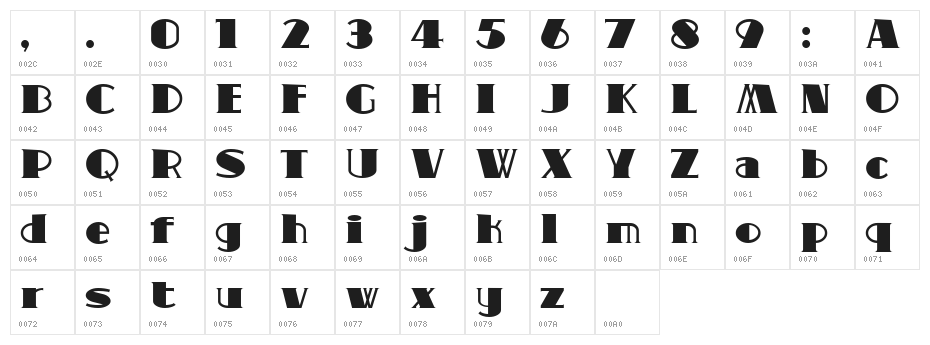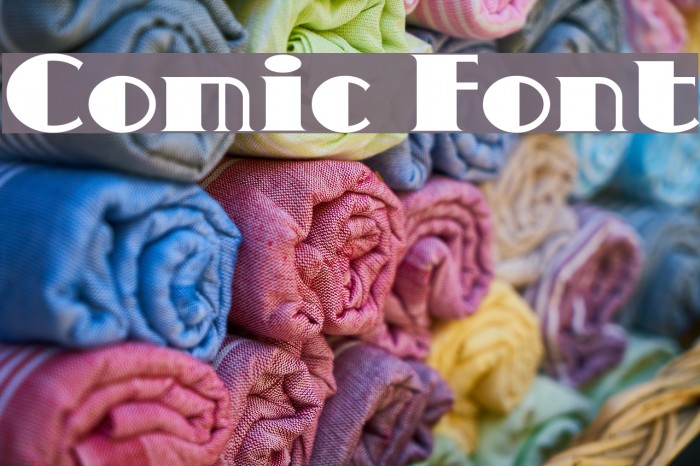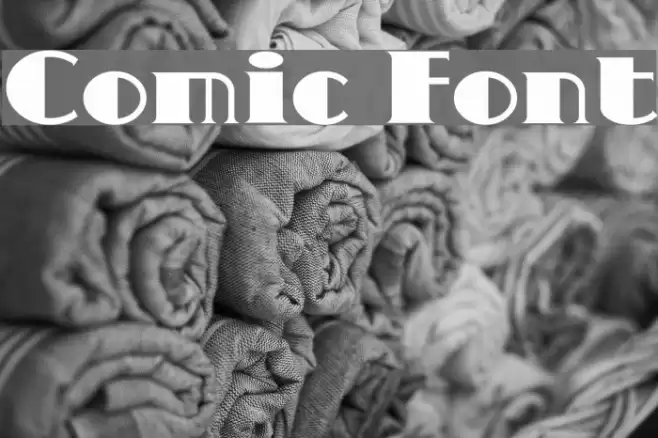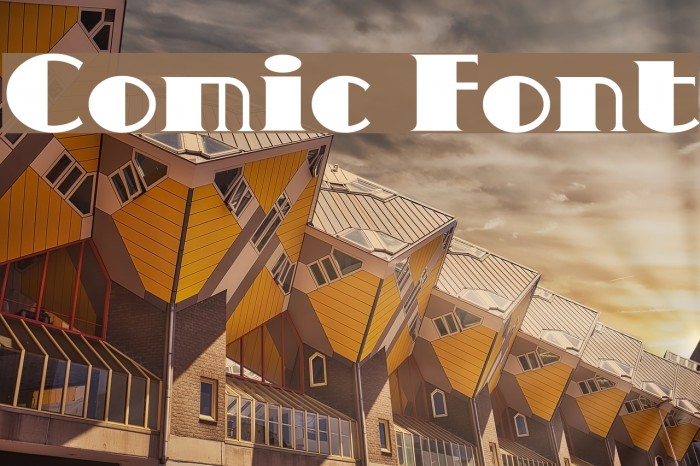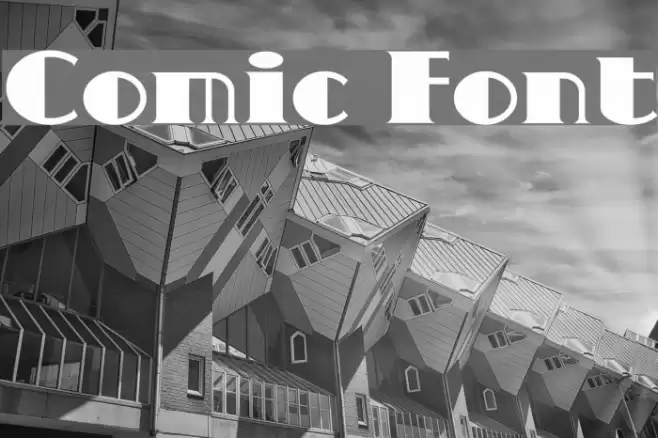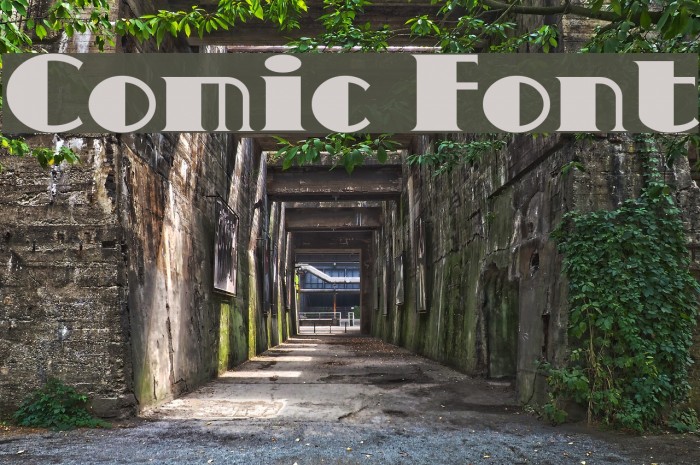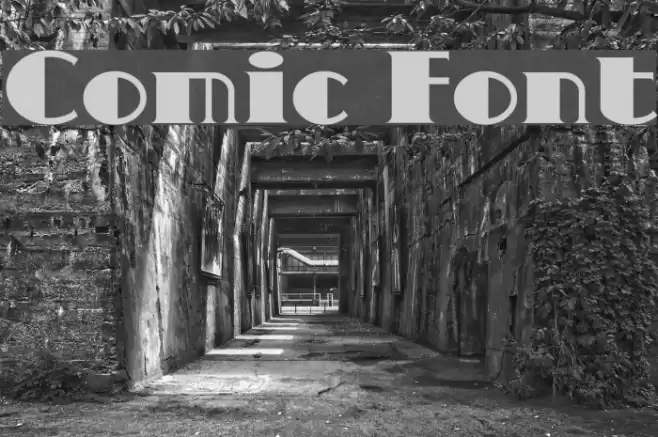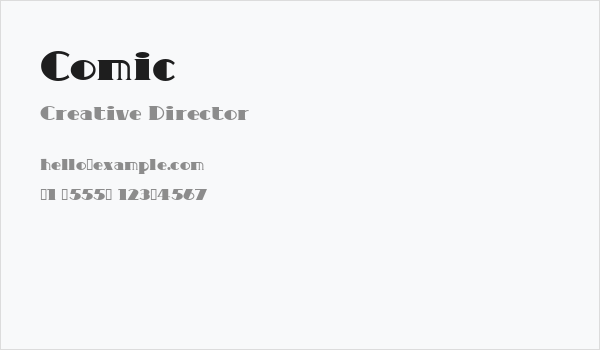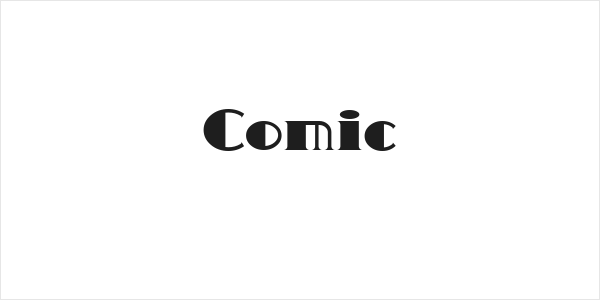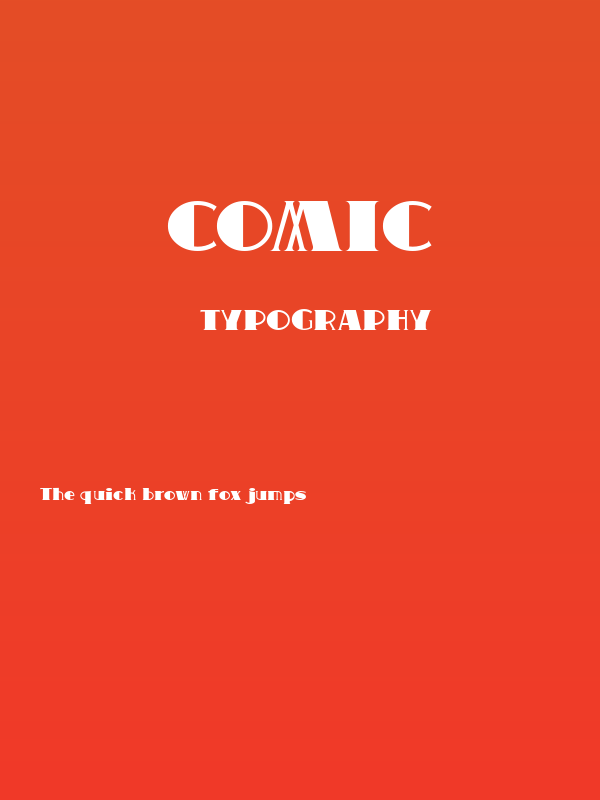
Comic Font
Comic Description
This font features a bold and dynamic style with a strong presence. The uppercase letters are characterized by thick, uniform strokes with subtle curves, giving them a modern and slightly playful appearance. The lowercase letters maintain the boldness of the uppercase, with some characters having unique, exaggerated features that add to the font's distinctive look. The numbers are equally bold, with a consistent stroke weight that ensures readability. The special characters are designed to match the overall style, maintaining the bold and playful aesthetic. This font is ideal for making a statement, with its eye-catching design and strong visual impact.
| Proposed Projects | Ideal for headlines, posters, branding, and any project requiring a strong visual impact. |